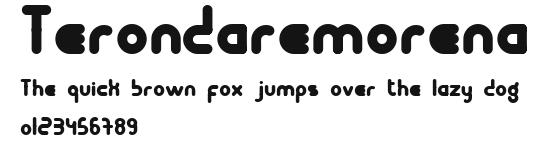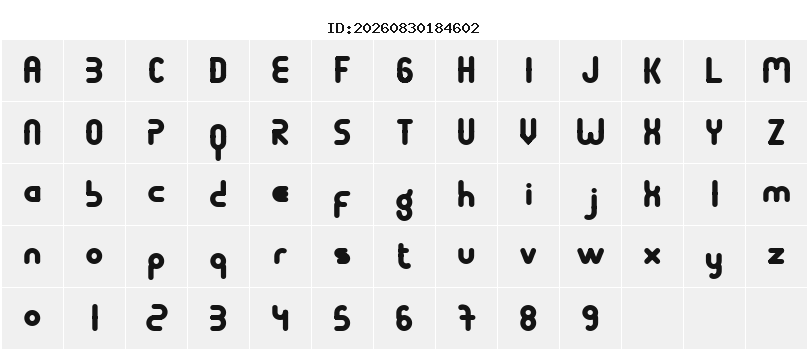
• Font Name: Terondaremorena
• Full Font Name: Terondaremorena
• Manufacturer: Juan Sebastián Rodríguez Moranta
• Description: fuente sin pretensiones, redondeada, para títulos y trabajos gráficos, inadecuada para textos.
Terondaremorena.ttf is a modern, elegant sans-serif font designed for ultimate readability and visual harmony. Perfect for branding, headlines, web design, and print materials.